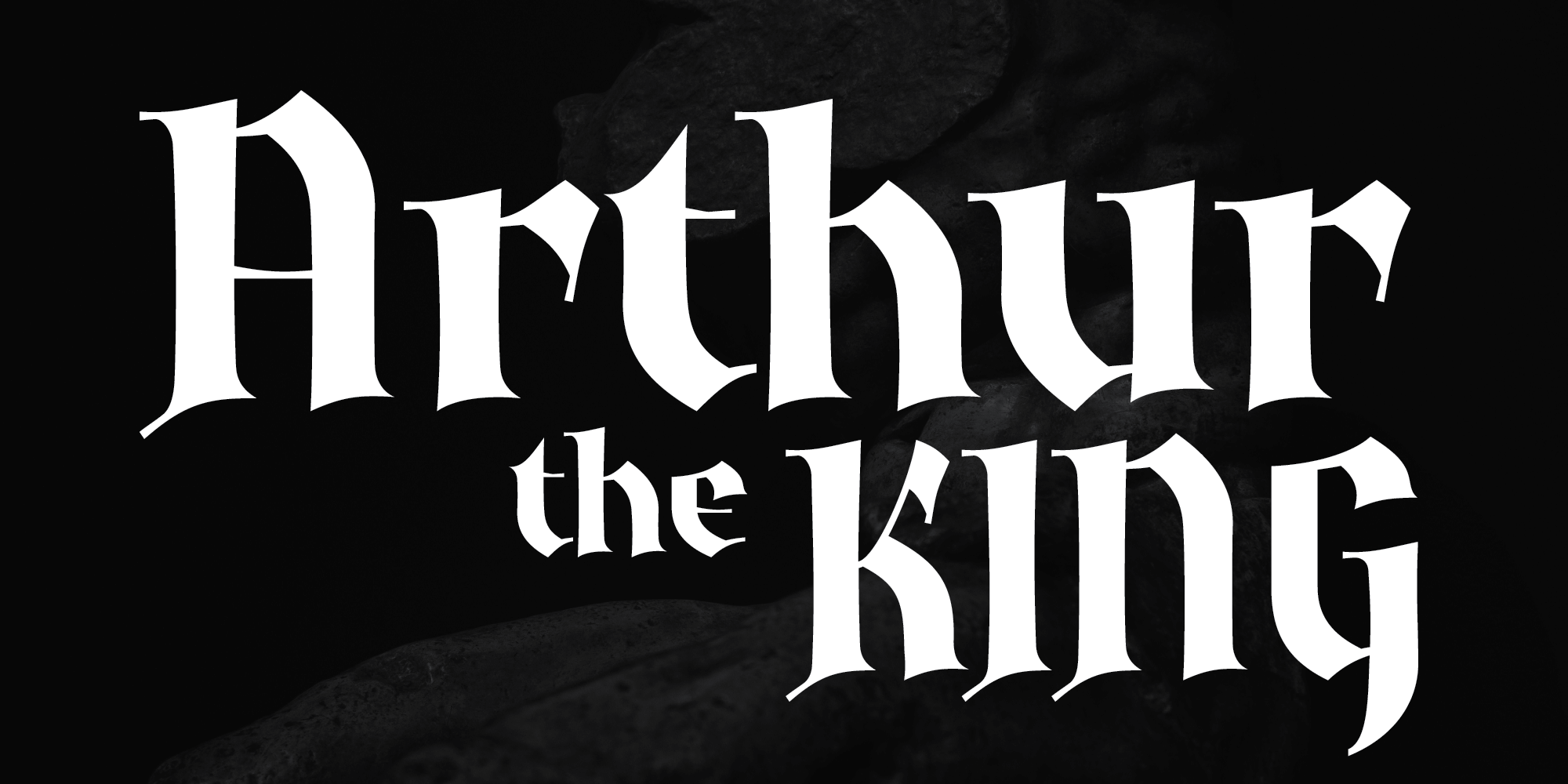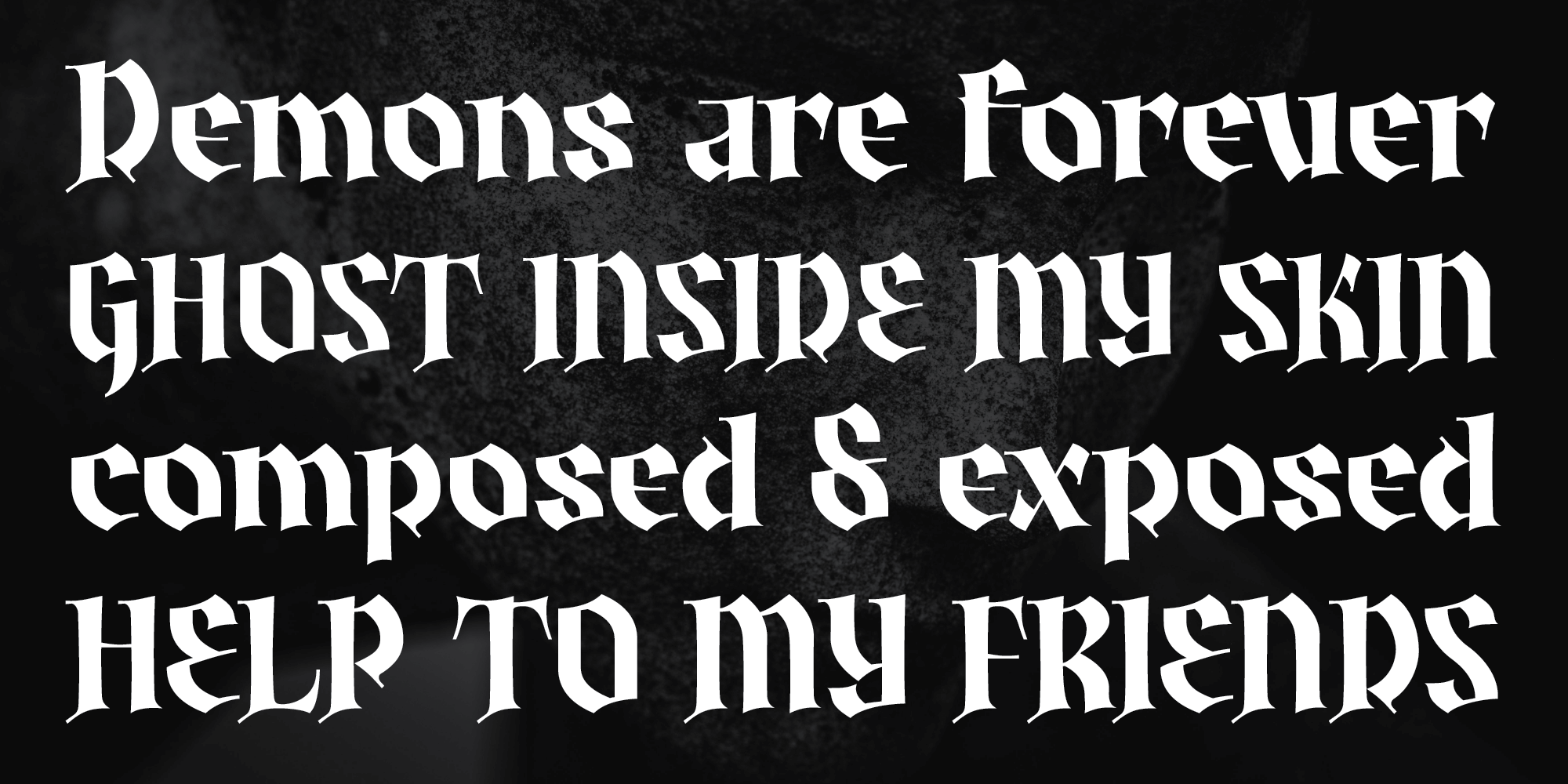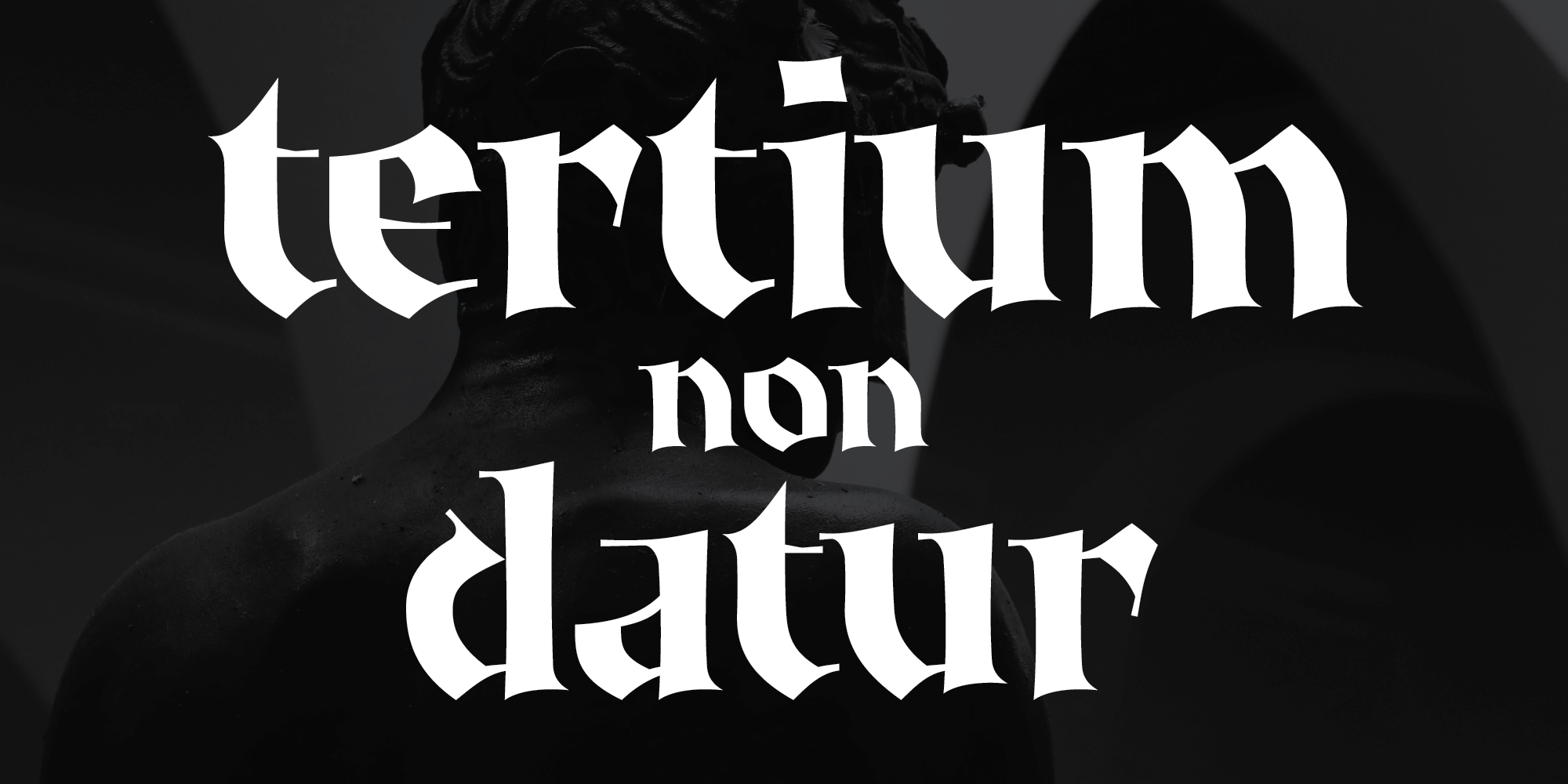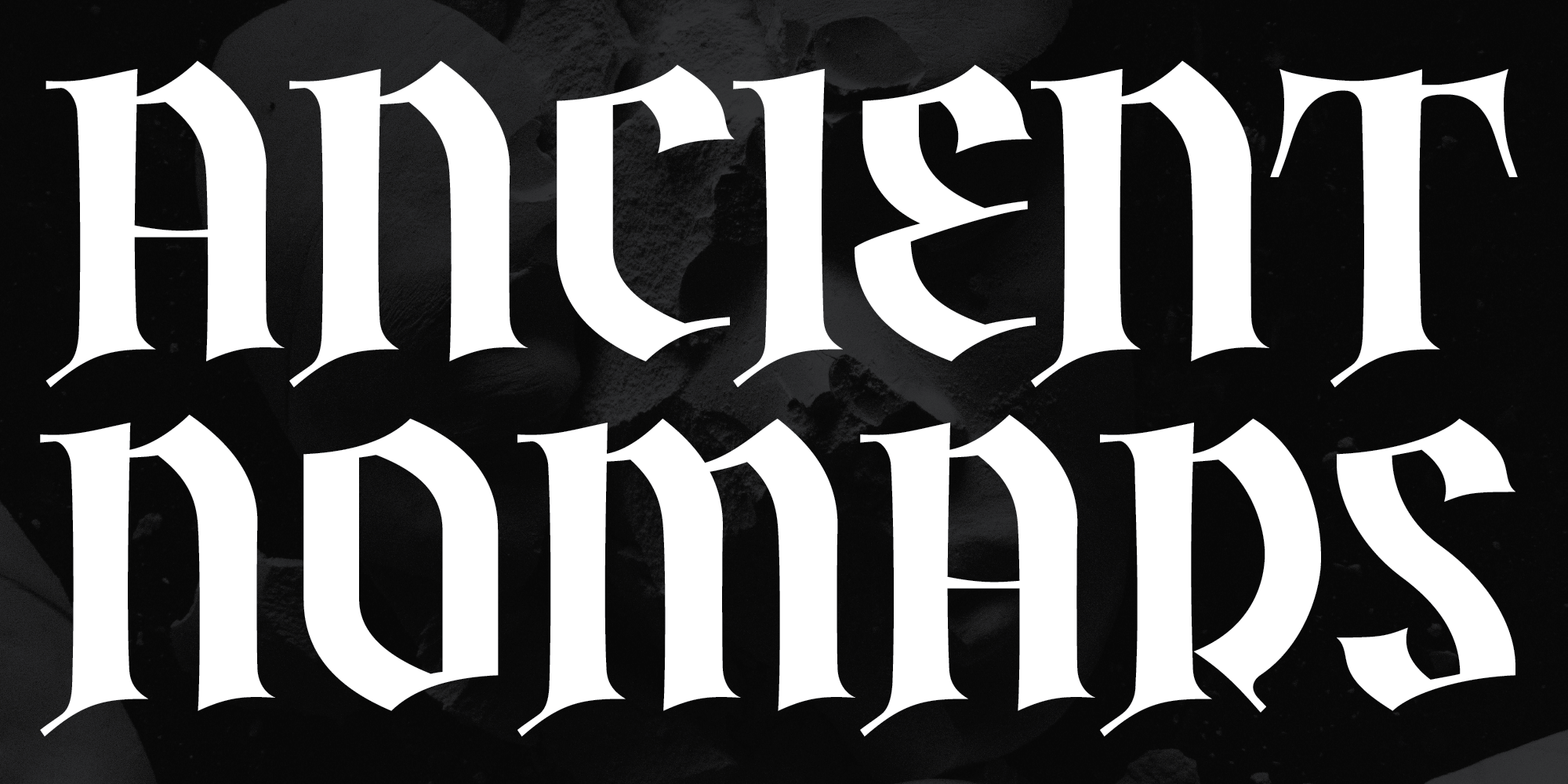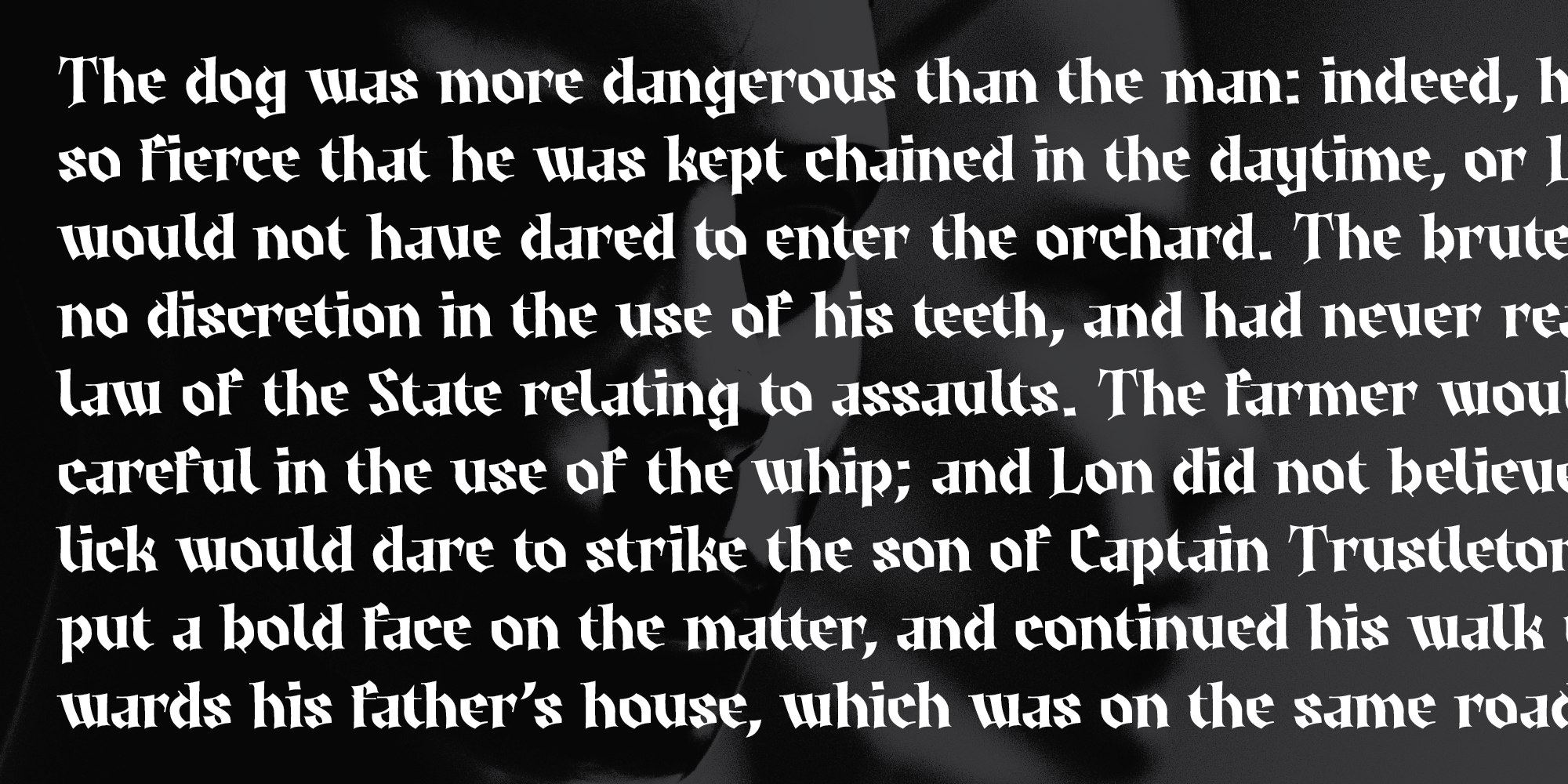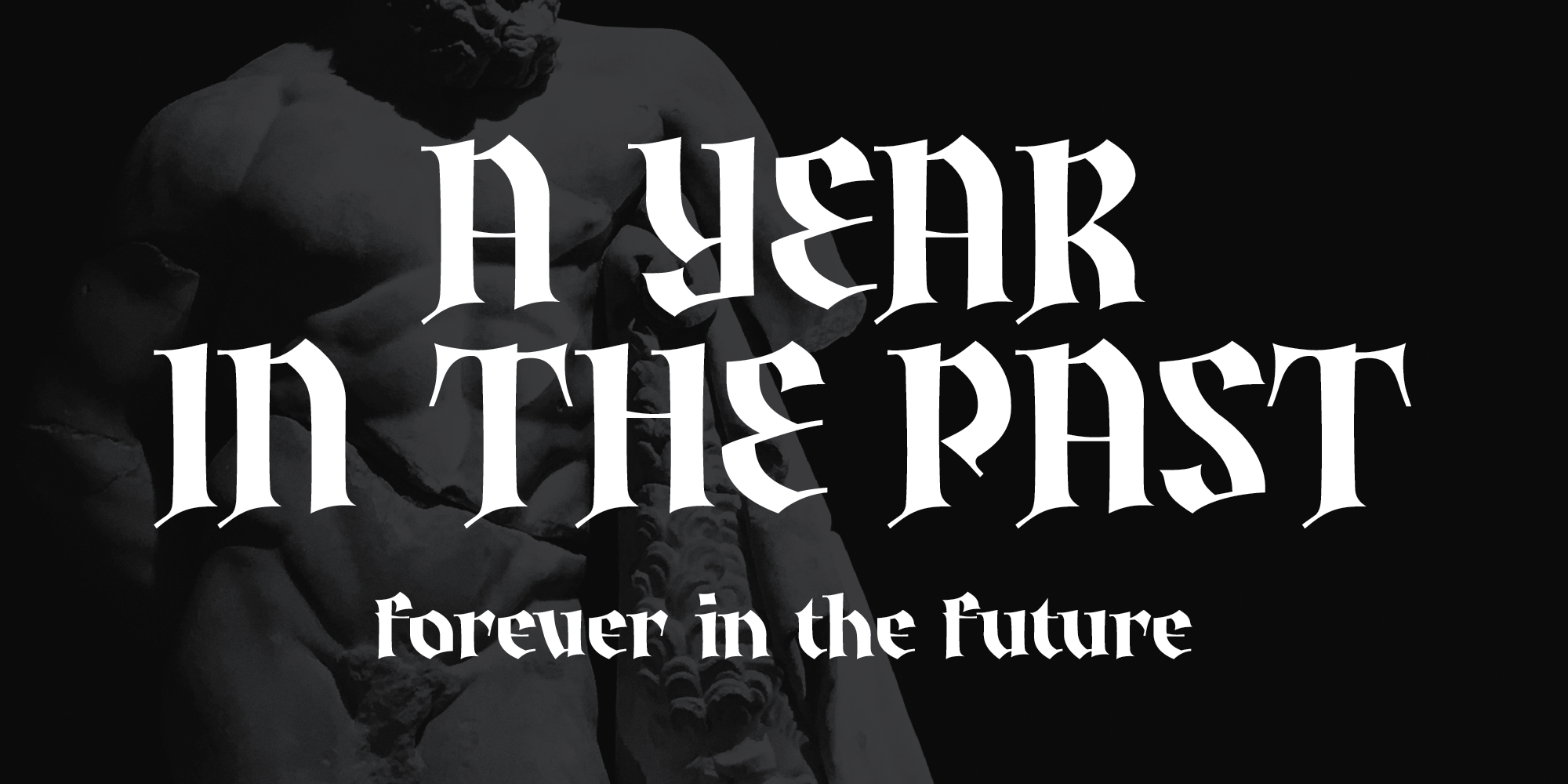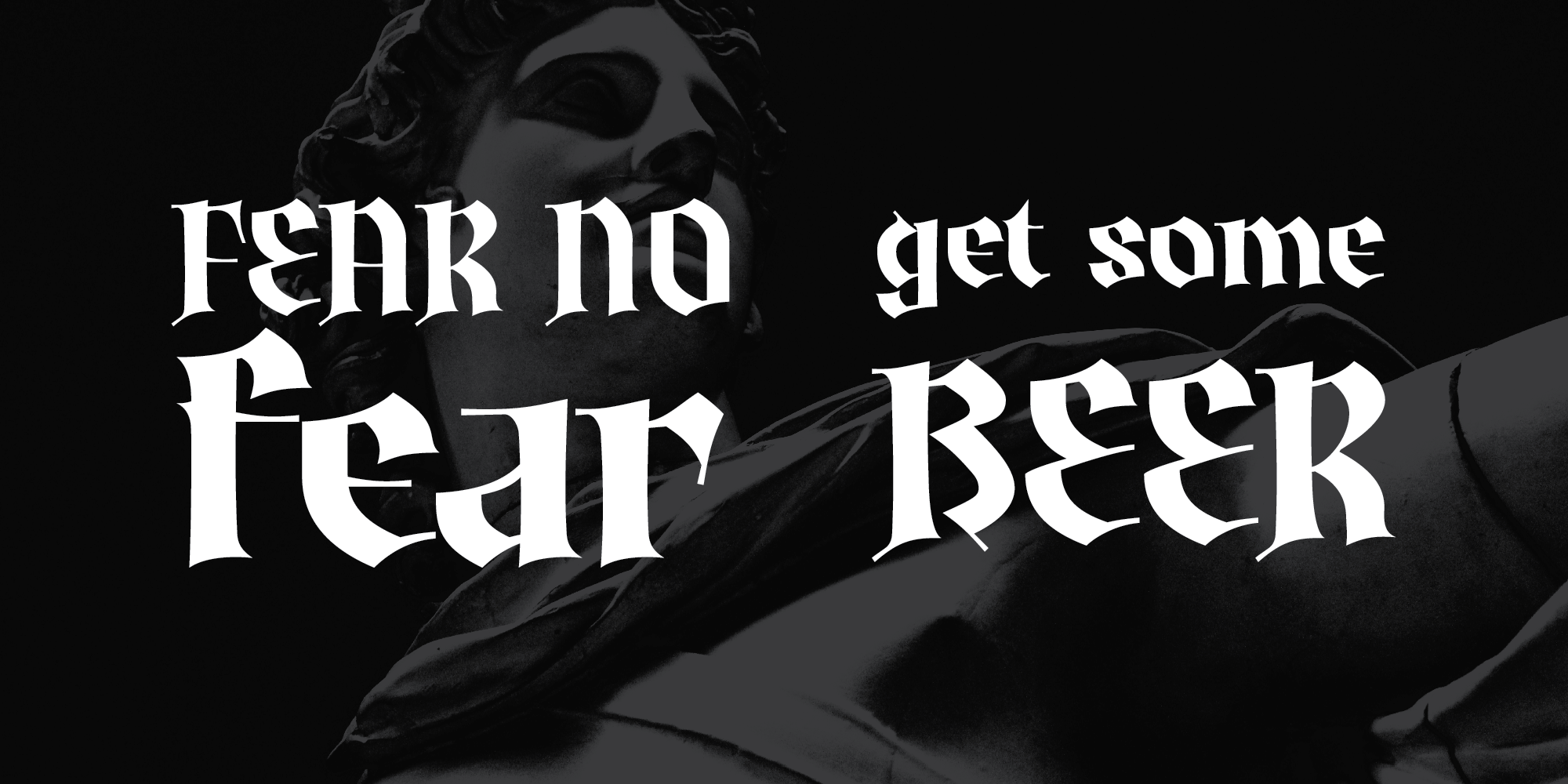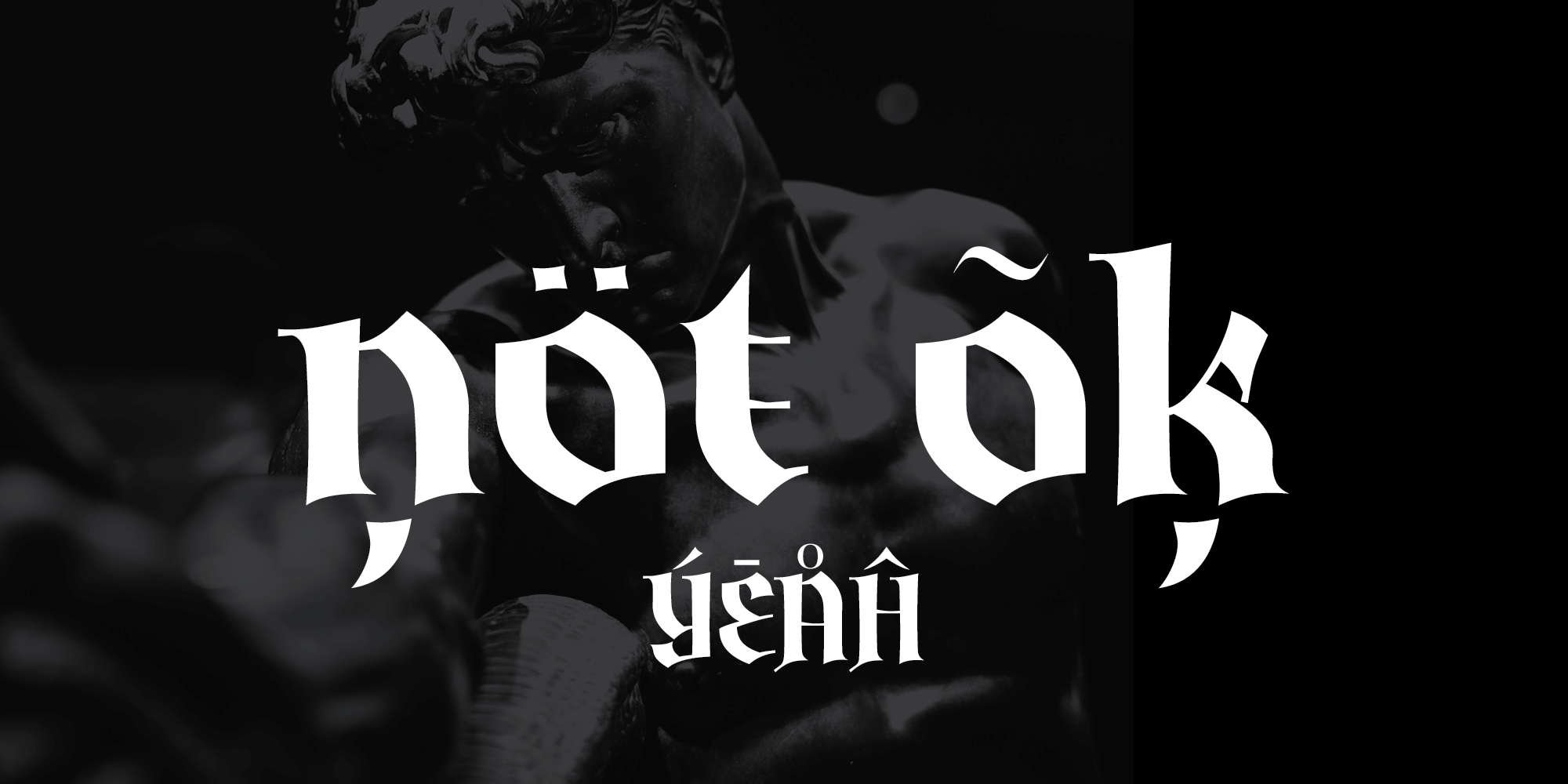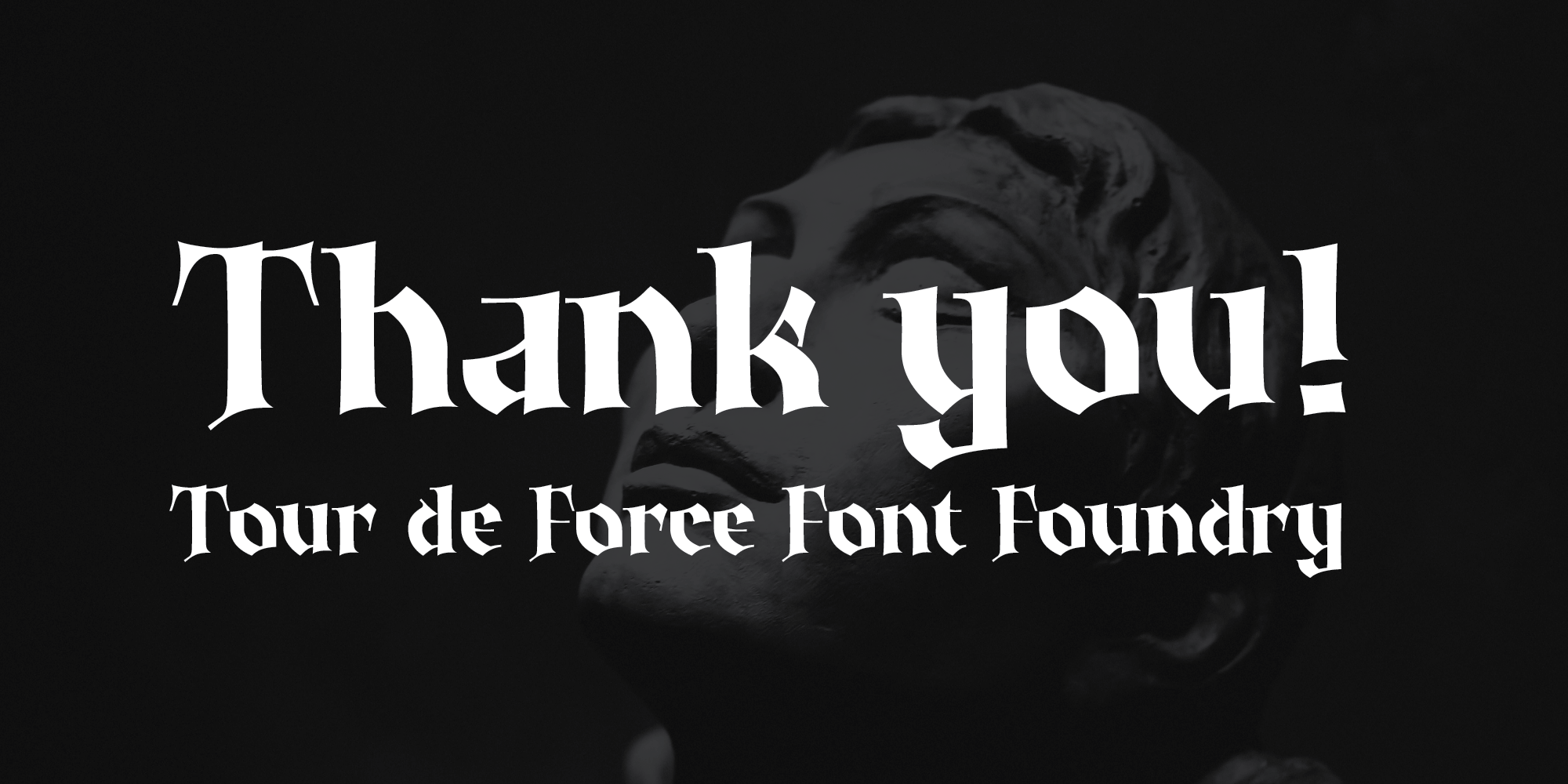
Ironia is modern blackletter typeface available in Regular style.
There is not much to tell about this typeface – there were no direct inspiration during its creation. It gives words an archaic visual impression, the most closer to Middle age.